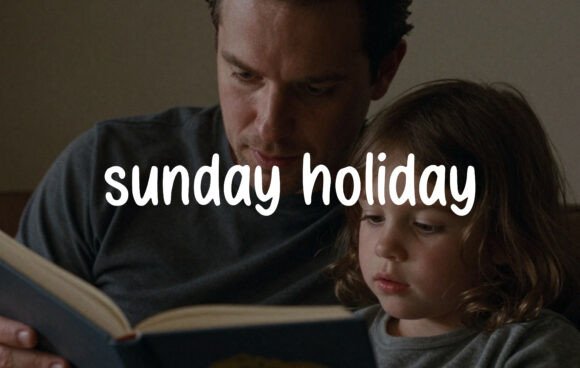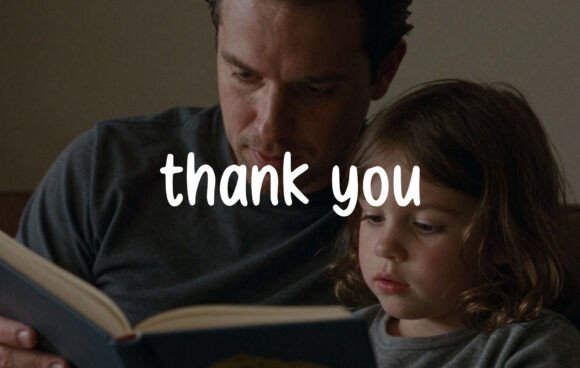
The Heart of Storytelling: Introducing Family Font
Do you remember the first time you saw a handwritten letter from a loved one? The way the pen danced across the page, the quirks and imperfections that made it uniquely yours? That’s the kind of warmth and intimacy that the Family Font embodies.
Designed to evoke a sense of connection and community, Family Font is a soulful handwritten typeface that brings a deeply human touch to every design. Its balanced proportions and natural flow make it the perfect choice for projects centered around family, home life, and emotional storytelling.
For designers, Family Font offers a valuable resource for creating authentic and sincere designs that resonate across generations. Whether you’re titling a digital photo album or designing for a non-profit organization, this typeface provides a voice that feels like home.
Key Features of Family Font
- Font Family: Family Font is a versatile font family that includes 6 different styles: Regular, Italic, Bold, Bold Italic, Condensed, and Condensed Italic.
- Unique Characteristics: Family Font features a unique blend of modern and traditional elements, with clean lines, rounded edges, and a friendly feel that makes it perfect for family-related projects, such as children’s books, family newsletters, and more.
Designer Review: Family Font
Overall, I was excited to dive into the Family Font, but as I started exploring, I found it had both its strengths and weaknesses.
- Unique Character Set: The font has a distinct set of characters that immediately caught my attention. It’s a great addition for designers looking for something new and fresh.
- Consistency: Throughout the font, I noticed a high level of consistency in terms of letter spacing, line height, and overall aesthetic.
- Clean Lines: The clean lines and minimalist approach make it perfect for digital design projects where simplicity is key.
- Limited Language Support: Unfortunately, the font’s character set is quite limited, making it less suitable for projects that require a wide range of languages.
- Lack of Variation: The font’s design is quite uniform, which can make it feel a bit monotonous when used for extended periods.
Overall, while the Family Font has its charm, it falls short in terms of language support and variation. It’s a solid choice for digital design projects that require a clean, minimalist aesthetic, but it may not be the best fit for more complex or multilingual projects.
Family Font Practical Application Guide
Getting the Most Out of Family Font
To get the most out of Family Font, use it consistently throughout your design or document to create a cohesive look. Experiment with different font sizes, colors, and styles to add visual interest. You can also pair Family Font with other fonts to create a unique and eye-catching design.
Family Font is suitable for a variety of applications, including:
- Family newsletters and magazines
- Personalized gifts and cards
- Branding and marketing materials